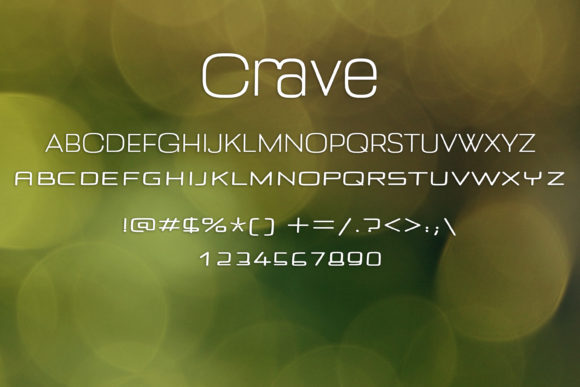
Introduction to Crave Font
Cravefeels incredibly unique and futuristic and makes a truly extraordinary display font.
Use it to turn any design idea into a standout .
Key Features of Crave Font